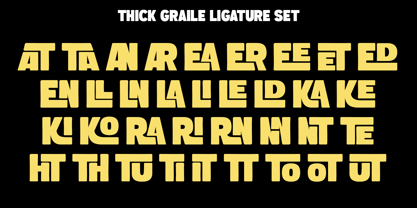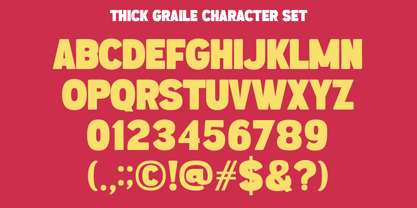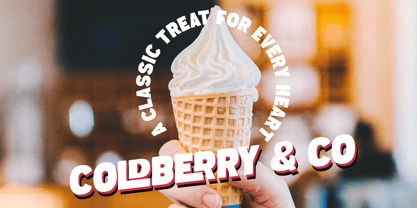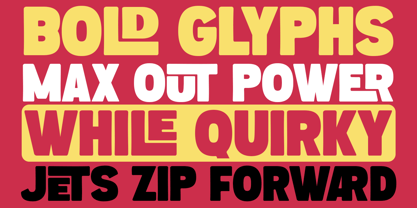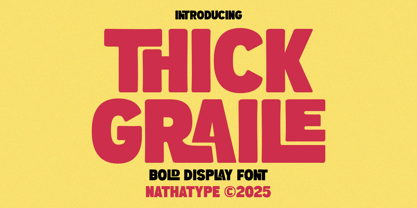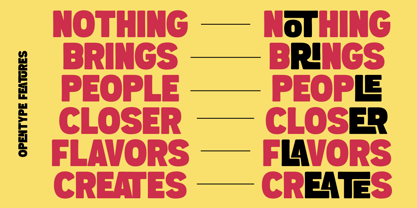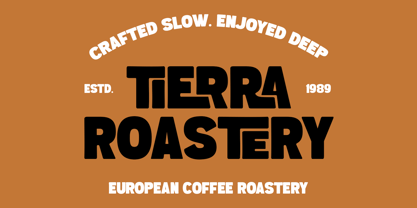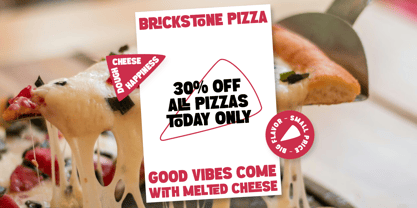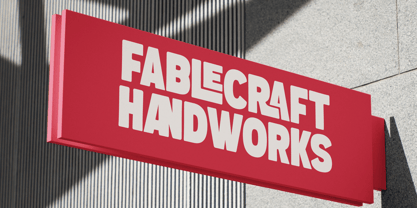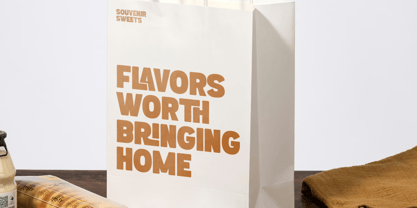
Thick Graile
von Nathatype
Die Schriftfamilie Thick Graile wurde von Donis Miftahudin entworfen und von Nathatype veröffentlicht. Thick Graile enthält 1 Stile. Mehr über diese Familie
Thick Graile is a powerful bold display font. Crafted in uppercases, thick, and rounded letterforms give Thick Graile a confident and solid presence. Its smooth, clean outline ensures crisp results in both print and digital formats, allowing your text to look polished and professional at any size. Thick Graile is perfect for designers who want bold typography that feels contemporary, professional, and highly readable. In addition, enjoy the features here. Features: Ligatures Multilingual Supports PUA Encoded Numerals and Punctuations Thick Graile fits in logos, quotes, branding, posters, and many more designs. Find out more ways to use this font by taking a look at the font preview. Thanks for purchasing our fonts. Hopefully, you have a great time using our font. Feel free to contact us anytime for further information or when you have trouble with the font. Thanks a lot and happy designing.
Designer: Donis Miftahudin
Foundry: Nathatype